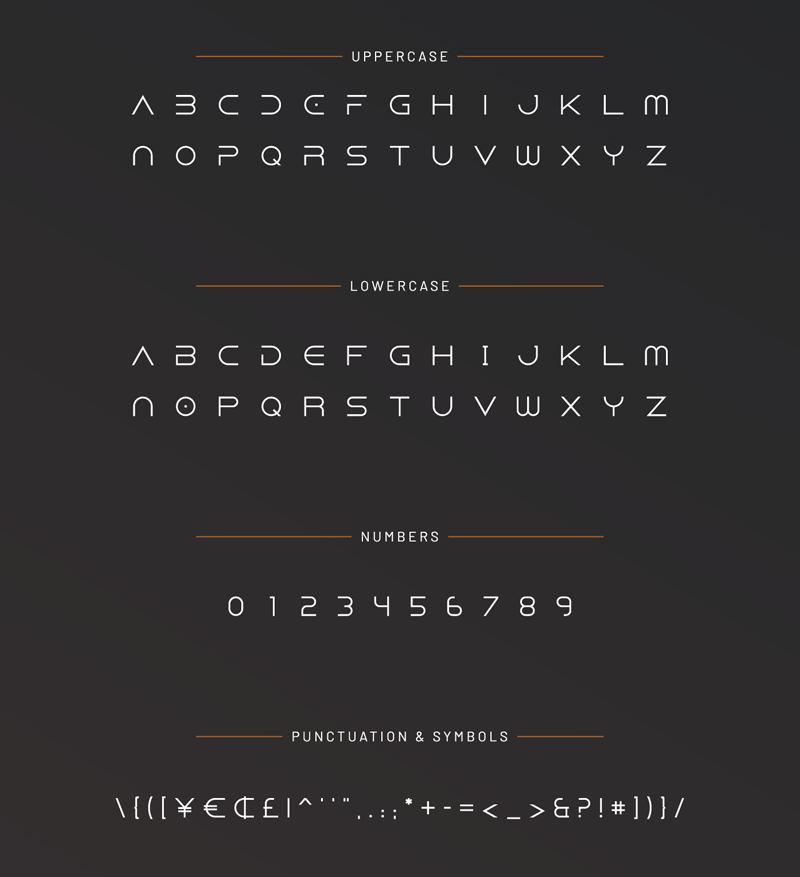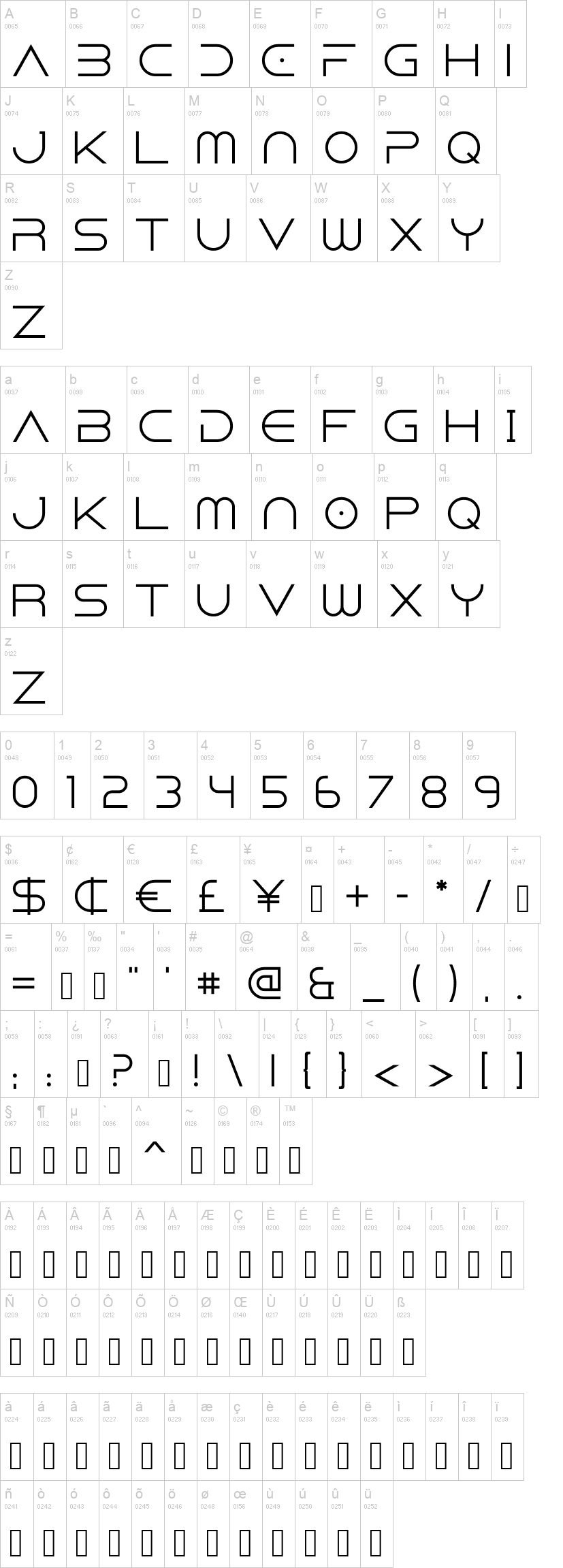
Note of the authorDune Rise is a futuristic display font that draws inspiration from the title of the science fiction film "Dune," directed by Denis Villeneuve. Jesta Designs from Fontswan.com created this font using the Canadian Aboriginal syllabary as a basis, which is believed to be the same approach used for the film's logo design.